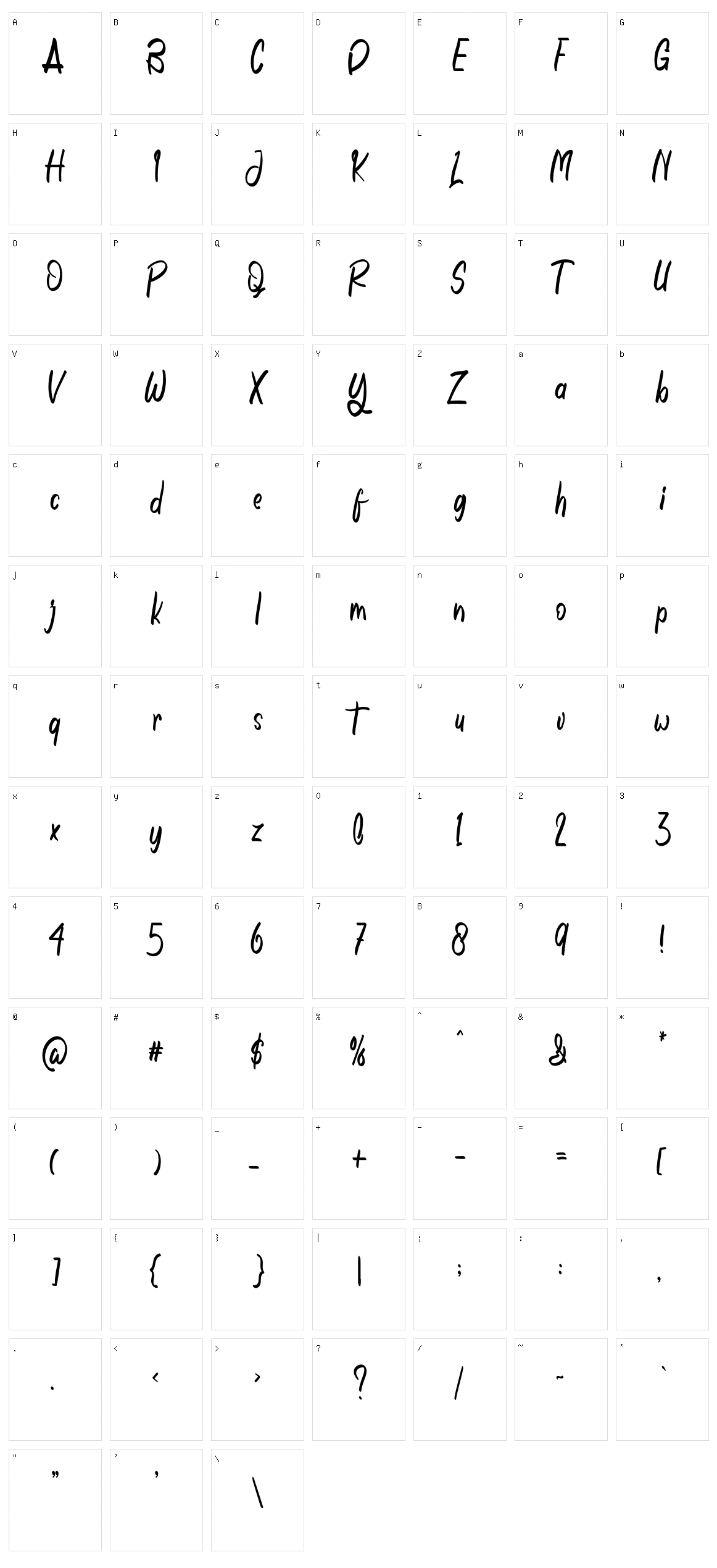
The free font November Is Cheerful is carefully designed by Arif Studios, showcasing a thoughtful balance of creativity and usability and falls under the Script font style. When you download the ZIP file, it contains only 23.15 KB of font files, making it lightweight and quick to download. Please review the license details below to understand permitted usage and distribution rights. If license information is not available, we recommend using this font for personal projects only or contacting the author directly for commercial usage permissions.